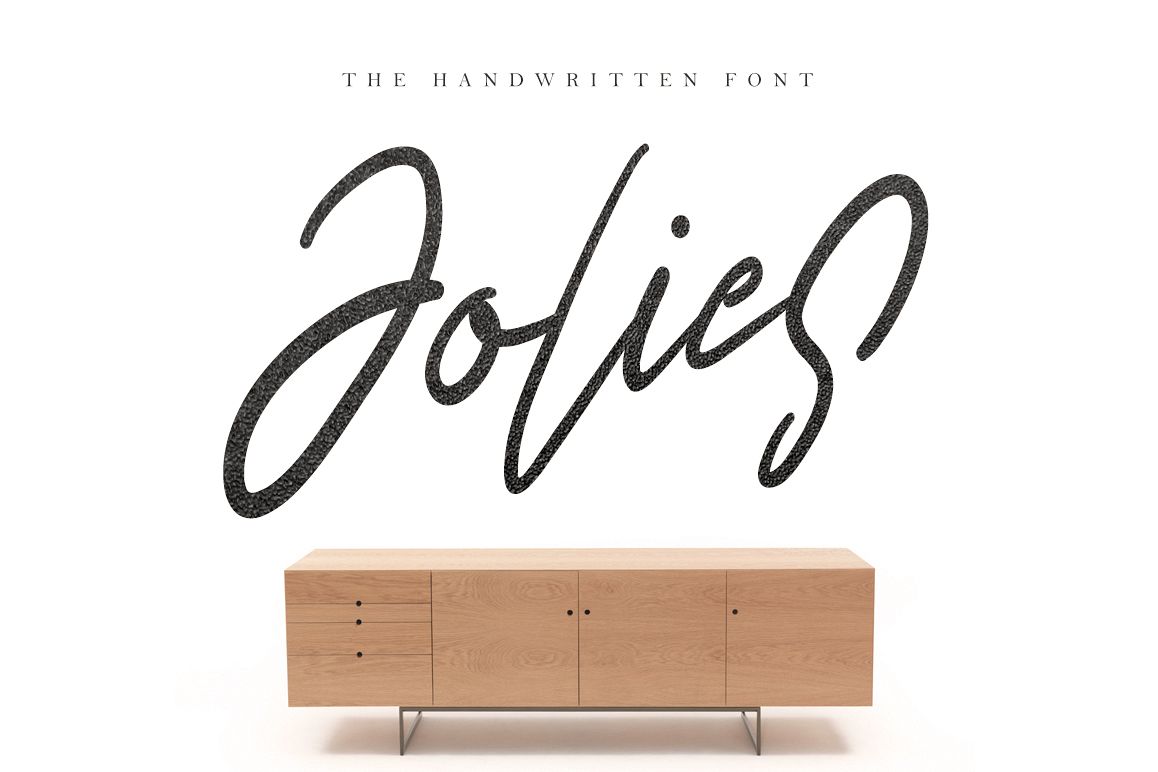
Jolies TypefaceJolies is handwritten modern stylish fonts, combines from classic to modern typeface with a clean design baseline.
Can be used for various purposes, such as headings, signature, logos, wedding invitation, t-shirt, letterhead, signage, lable, news, posters, badges etc.